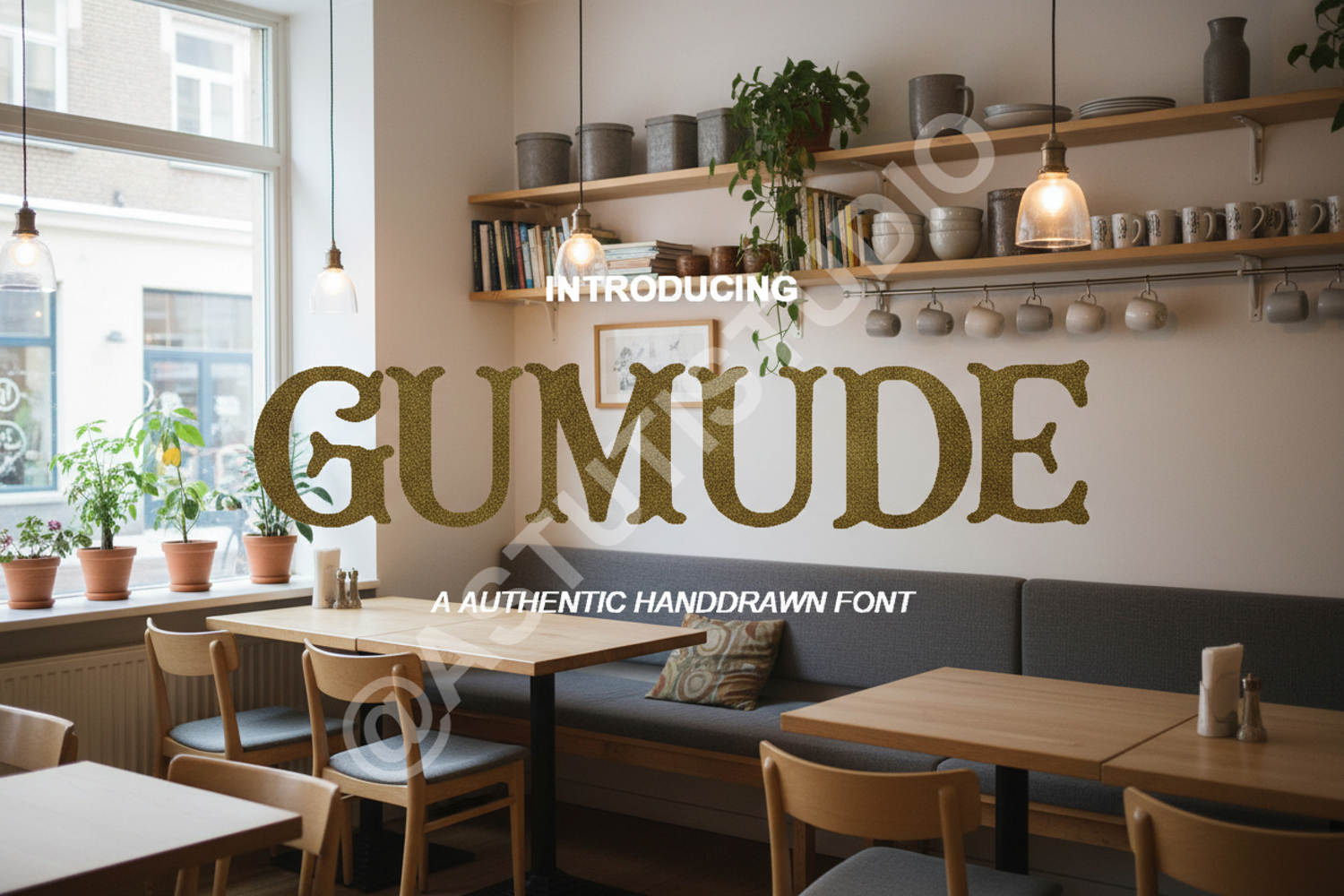
Gumude - Modern & Sophisticated Serif Typeface
Gumude
Gumude is a premium serif font designed to bring a touch of class and timeless elegance to your creative projects. With its balanced proportions and clean lines, this typeface offers a professional aesthetic that works seamlessly across both digital and print media. Whether you are aiming for a minimalist look or a high-end luxury feel, Gumude provides the versatility needed to elevate your designs.
Gumude is highly versatile and perfect for:
- High-end Branding and Logo Design
- Editorial Layouts and Magazine Spreads
- Elegant Wedding Invitations and Stationery
- Sophisticated Social Media Graphics
- Luxury Product Packaging
- Professional Website Headers